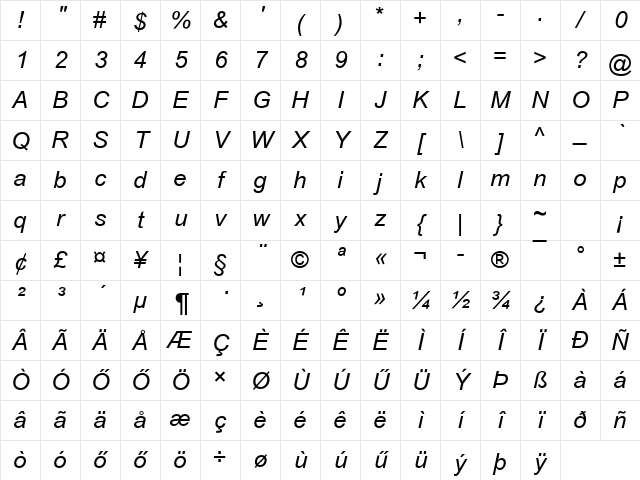
Complete H-Arial Italic glyph index. Displaying only characters natively supported by H-Arial Italic font.
H-Arial is a composed and adaptable typeface that performs quietly and consistently across a wide range of design contexts. The slanted form adds forward momentum and visual energy.